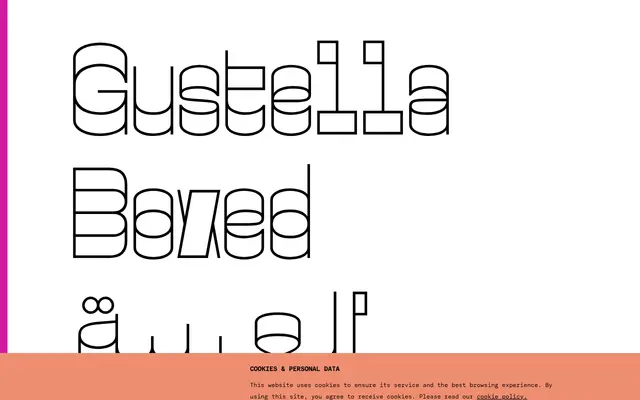
Gustella Boxed Arabic
An Arabic extension of Thomas Thiemich's reverse-contrast Gustella Boxed, bringing extreme stroke contrast to both Arabic and Latin scripts across four weights.
Released in December 2020 as part of the wider Gustella superfamily, this variant extends the family's defining reverse-contrast treatment to Arabic, covering both scripts with a shared character set. The design sits within a lineage running from nineteenth-century Western 'WANTED' lettering through hippy-era typography, with Thiemich pushing the contrast to contemporary extremes made possible by digital precision. The four weights from Thin to Bold share identical metrics with the other Gustella variants, allowing overprinting across Solid, Stripes, Inline and Boxed versions.
Gustella Boxed Arabic is a reverse-contrast display typeface with extreme stroke contrast rooted in nineteenth-century Western slab and hippy-era lettering traditions, adapted here for both Latin and Arabic scripts.